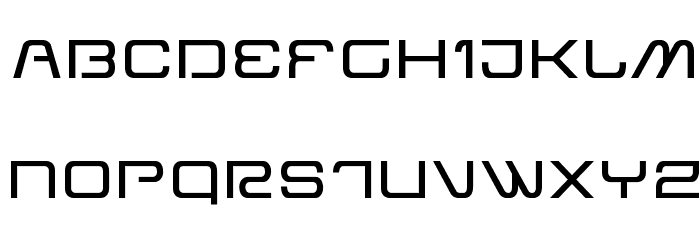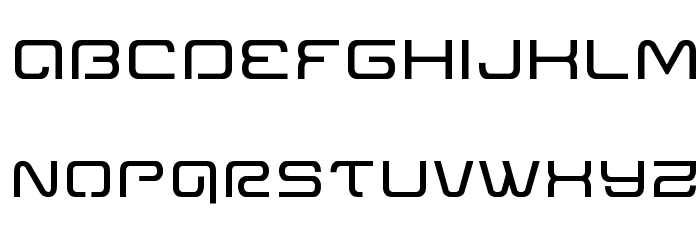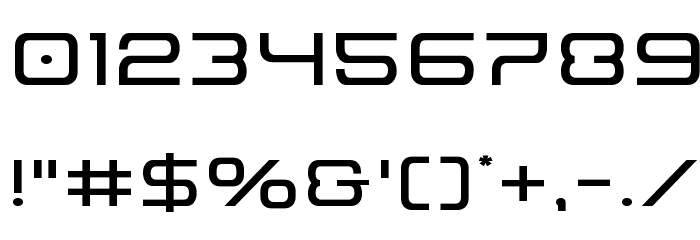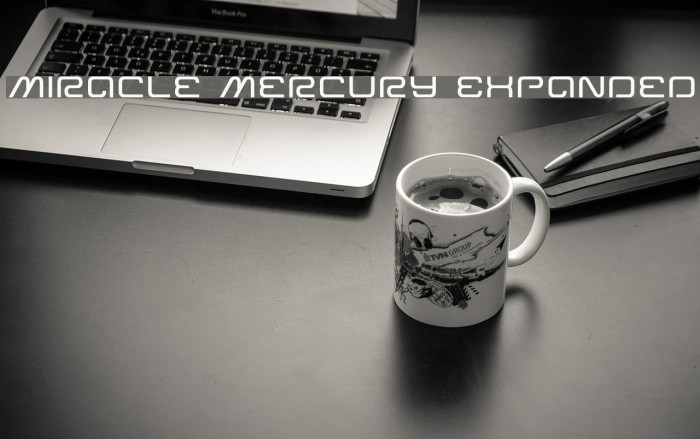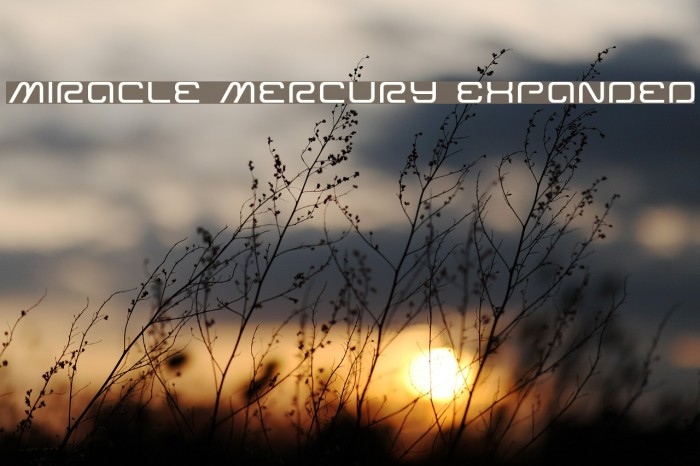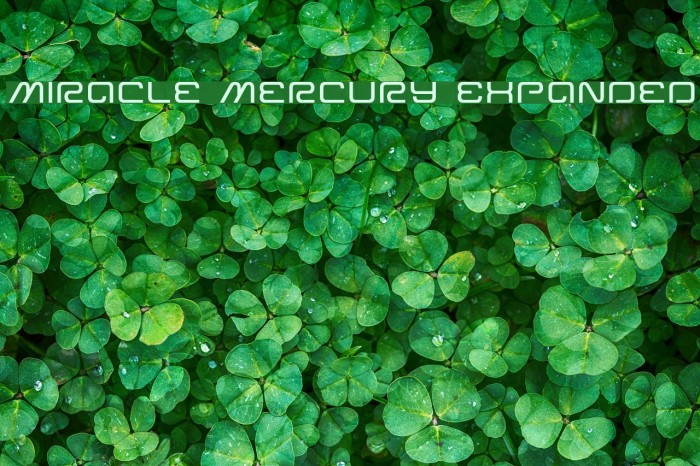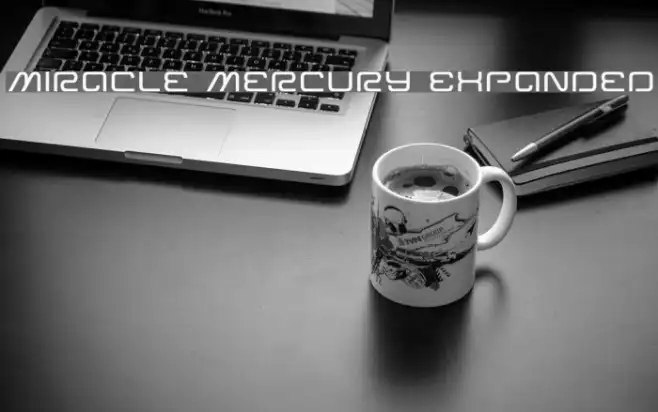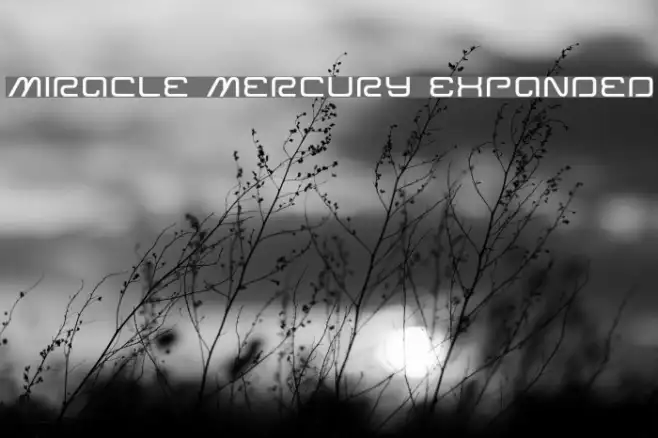
Miracle Mercury Expanded Font
This font features a futuristic and geometric design, characterized by its clean lines and rounded edges. The uppercase and lowercase letters maintain a consistent height, creating a uniform appearance. The numerals and special characters follow the same design principles, ensuring a cohesive look across all elements. The font's expanded width gives it a bold presence, making it suitable for attention-grabbing headlines and modern design projects. Its unique style is both contemporary and versatile, allowing it to be used in a variety of contexts where a sleek and modern aesthetic is desired.
A futuristic, geometric font with clean lines and rounded edges, ideal for modern designs.
- Proposed Projects: Ideal for technology branding, sci-fi themed projects, modern advertising, and digital interfaces.
- Overall Style: Futuristic
- Use Case: Headlines, Logos, Digital Interfaces